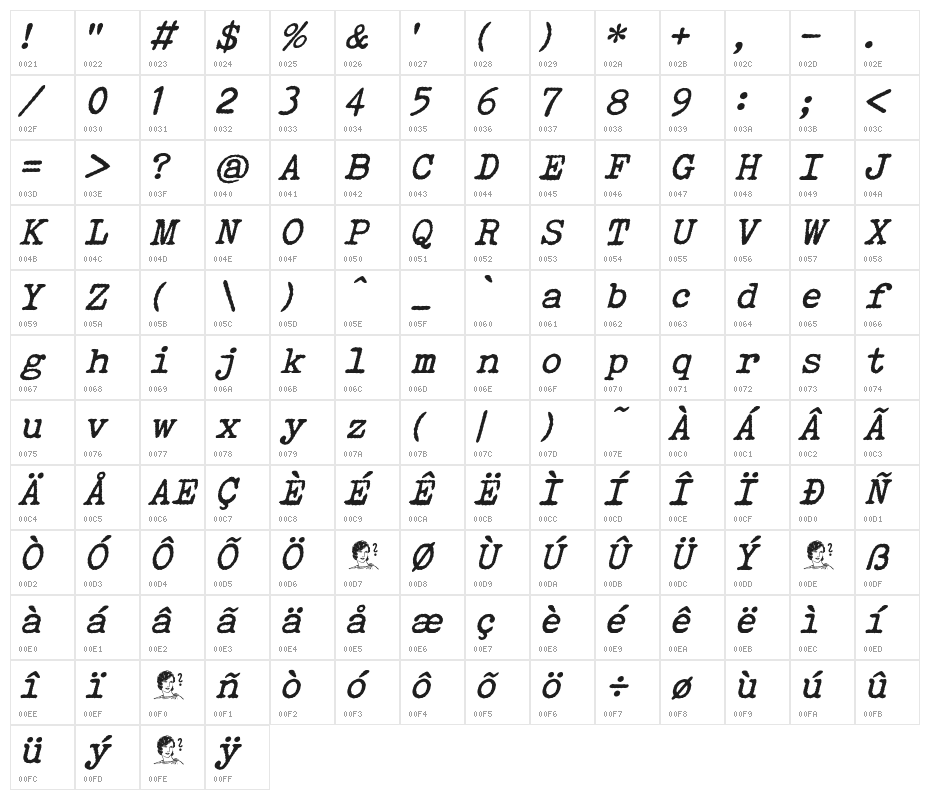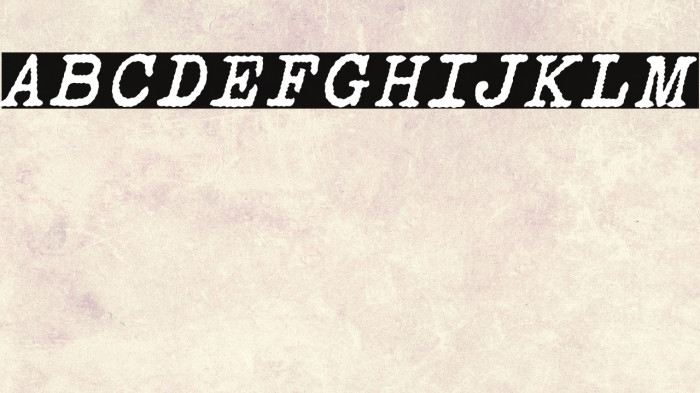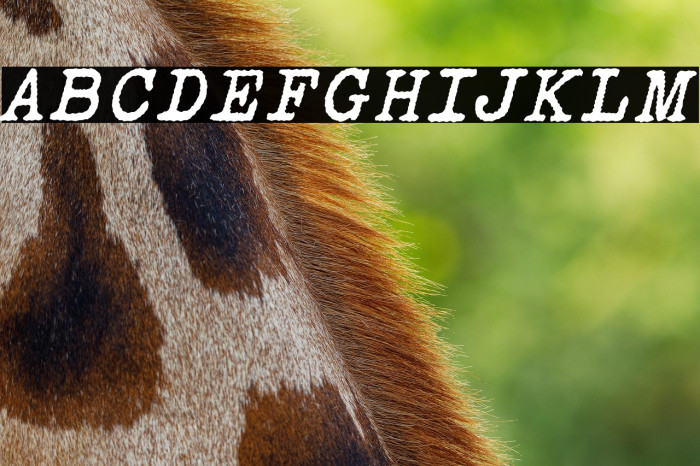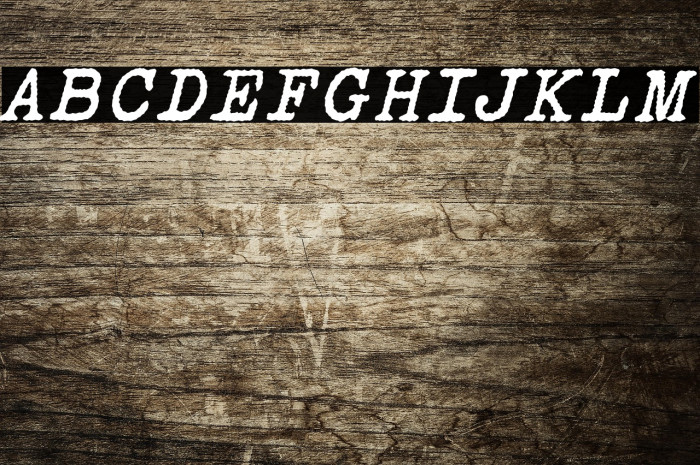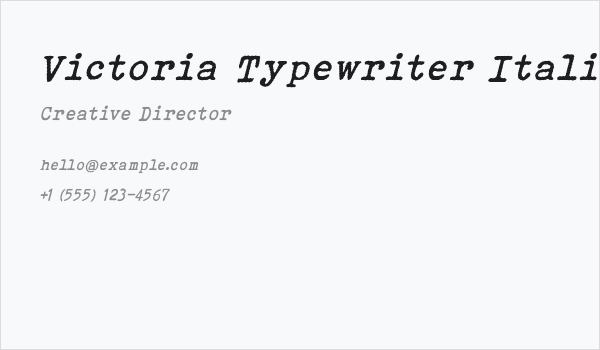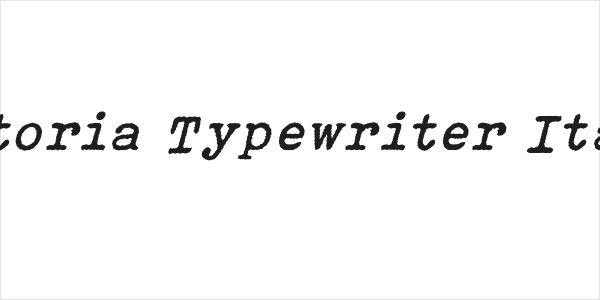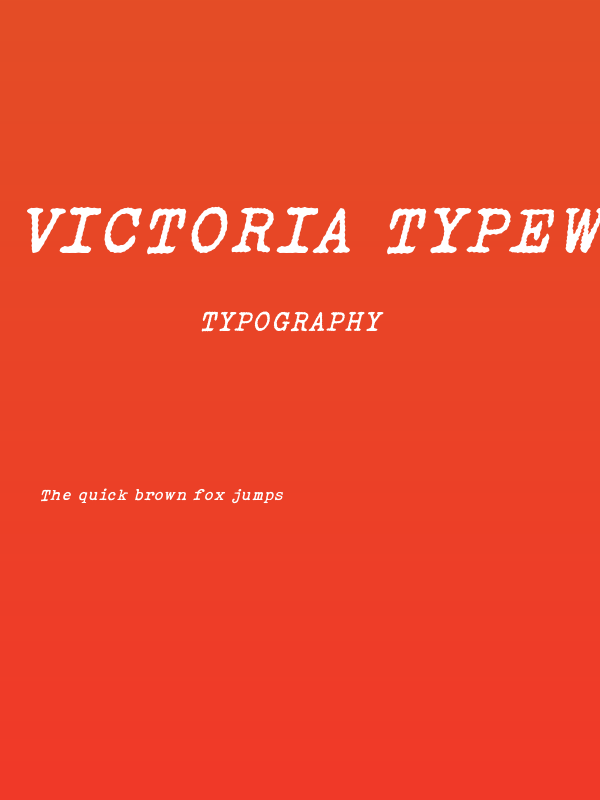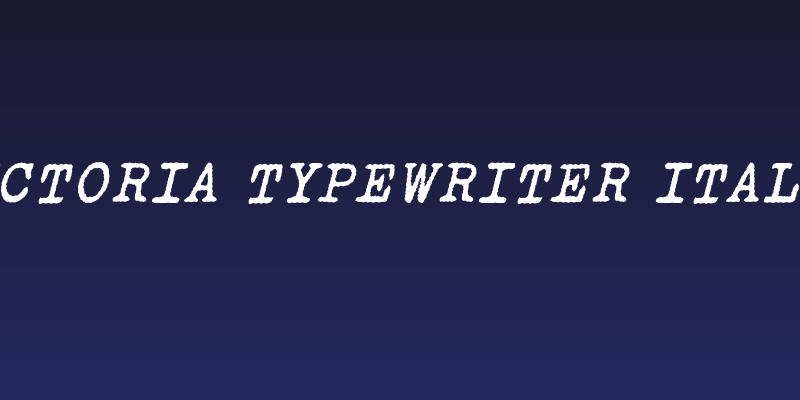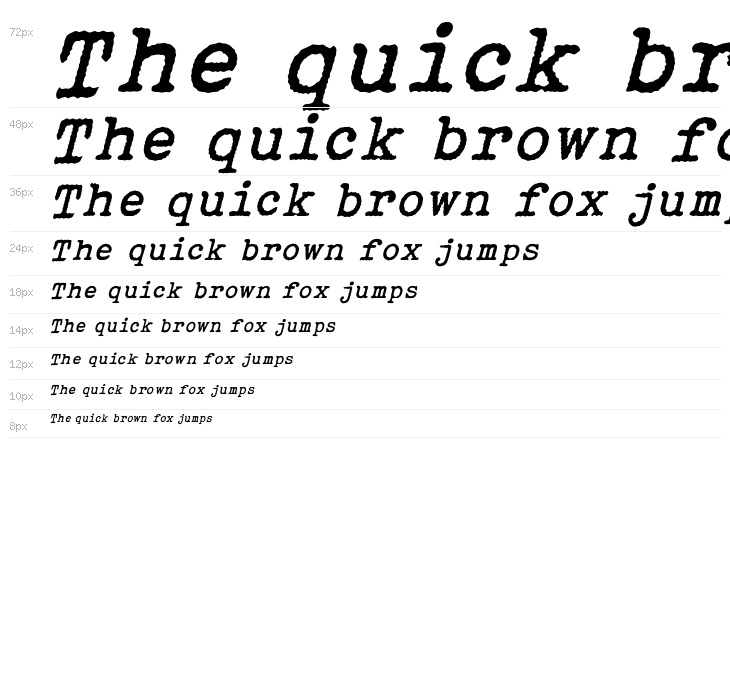
Victoria Typewriter Italic Font
Victoria Typewriter Italic Description
This font exudes a vintage charm reminiscent of classic typewriter styles, characterized by its monospaced letters and distinct italic slant. Each character is uniformly spaced, creating a mechanical and precise appearance. The strokes are consistent in weight, offering a medium contrast that enhances readability while maintaining a nostalgic aesthetic. The font's texture mimics the slightly uneven ink distribution typical of old typewriters, adding to its authentic feel. Its unique style makes it suitable for projects that aim to evoke a sense of history or nostalgia.
| Use Case | Headlines, Logos, Creative writing |
| Proposed Projects | Ideal for retro-themed designs, typewriter-inspired art, historical documents, and creative writing projects. |